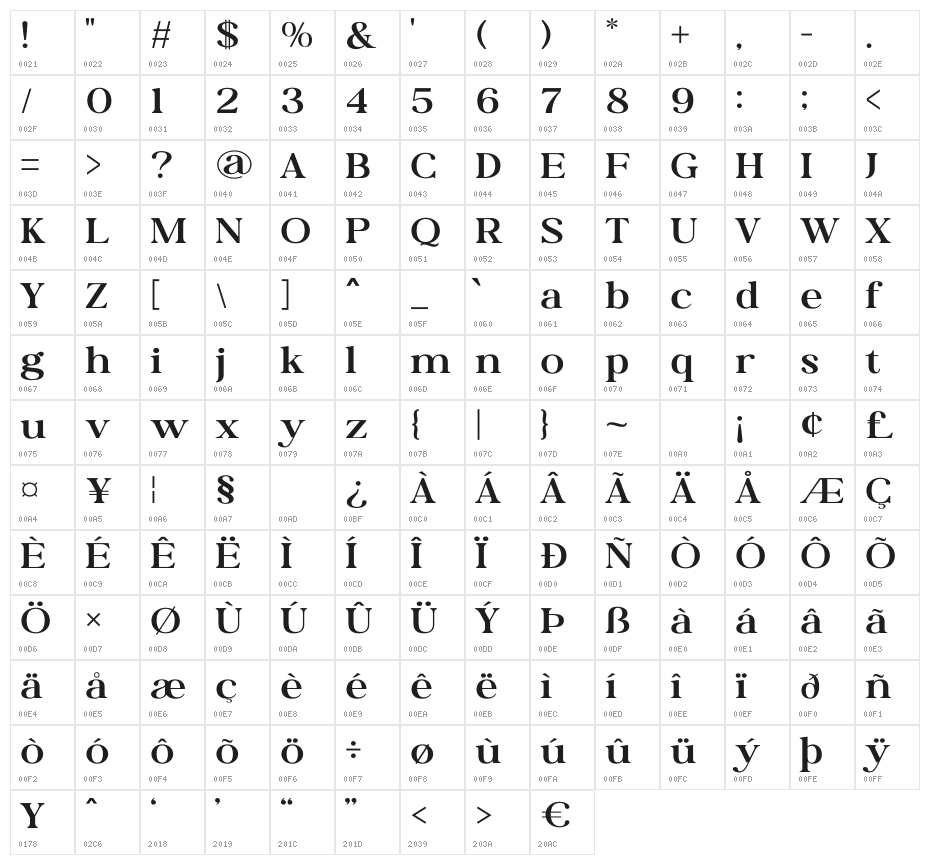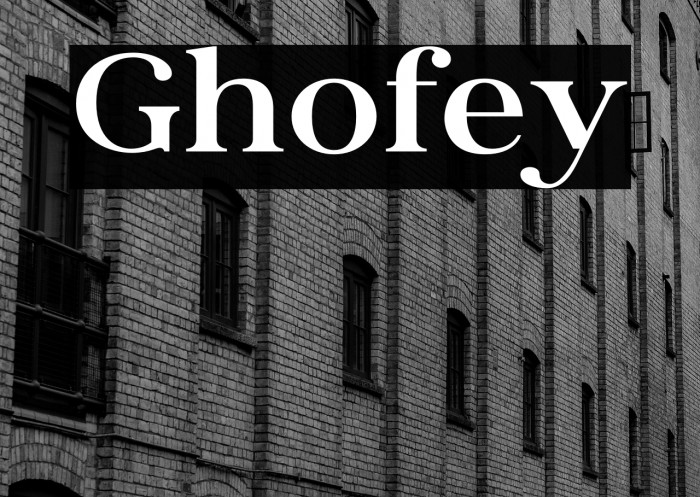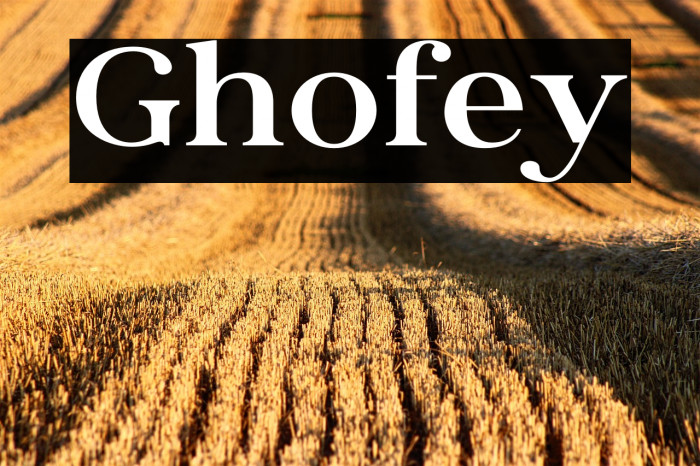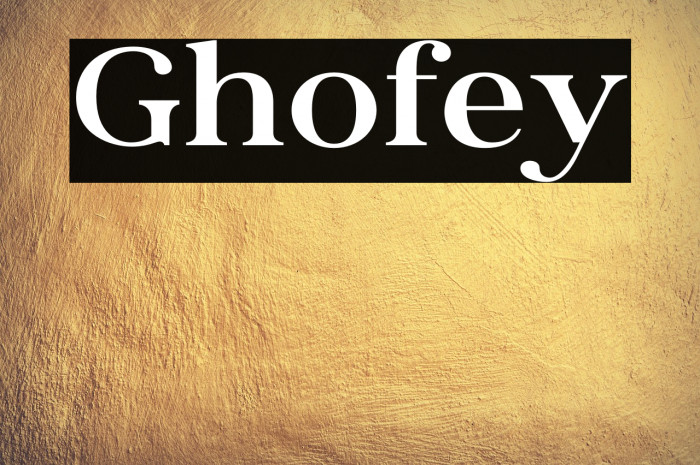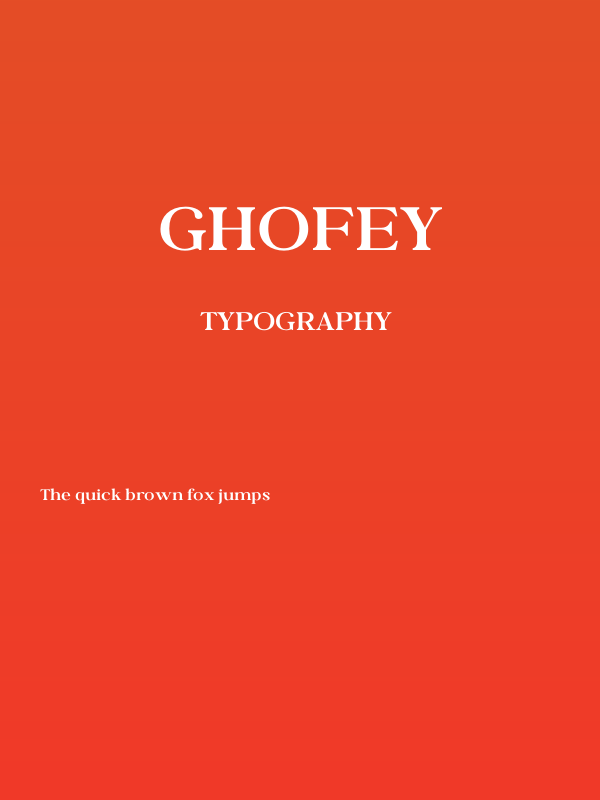
Ghofey Font
Ghofey Description
This font features a classic serif style with elegant and refined strokes. The characters exhibit a strong contrast between thick and thin lines, giving it a sophisticated appearance. The serifs are pronounced and add a touch of traditional elegance, making it suitable for formal and professional settings. The uppercase letters are bold and commanding, while the lowercase letters maintain a balanced and harmonious flow. The numerals are clear and distinct, ensuring readability. Special characters are well-integrated, maintaining the overall aesthetic of the font.
| Proposed Projects | Ideal for editorial design, book covers, formal invitations, and branding for luxury products. |